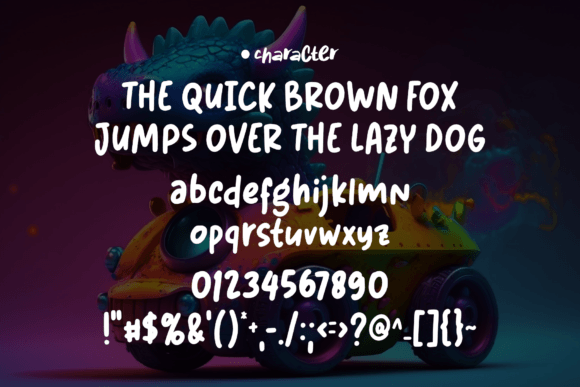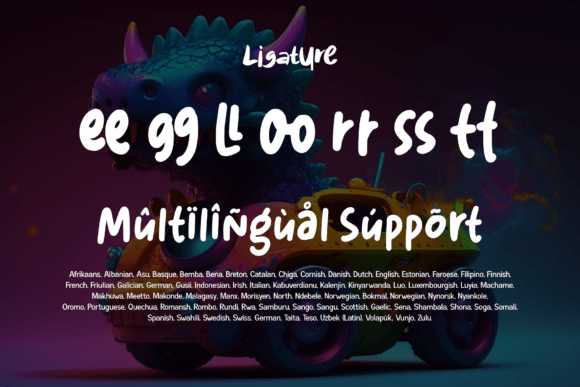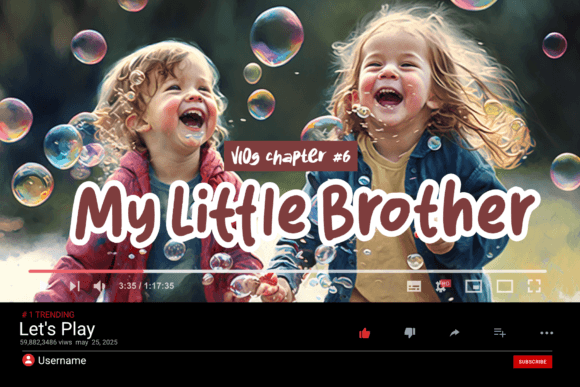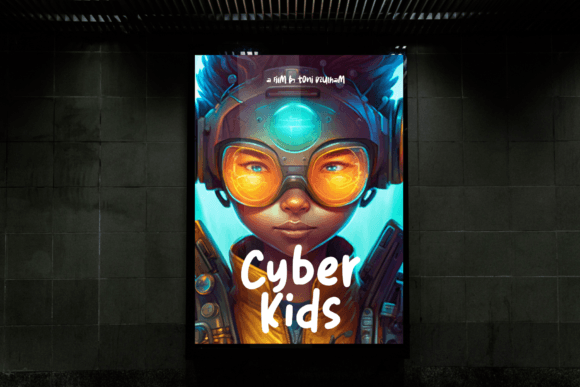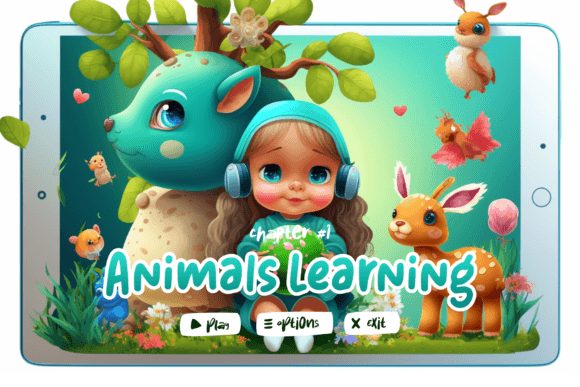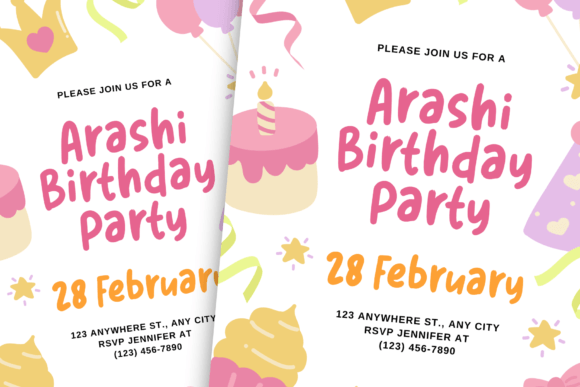
Introduction to Kidomo Font
Have you ever stumbled upon a design that instantly brings a smile to your face? Maybe it’s a colorful logo for a children’s book, or a playful social media post for a kids’ brand. Whatever it is, it’s likely that the Kidomo Font was behind its charm. This fun and colorful display font is a game-changer for designers looking to create eye-catching and playful designs that capture the essence of childhood.
As a designer, you know the value of having a reliable design resource at your fingertips. With Kidomo Font, you can bring your creative projects to life with a high-quality, free download that’s perfect for transparent backgrounds and bold statements. Its unique and charming character makes it a must-have for any designer looking to create designs that stand out from the crowd.
Key Features of Kidomo Font
- Transparent background: Kidomo Font allows for seamless integration with various creative project backgrounds.
- High-quality design: This font is a valuable design resource, perfect for designers and artists looking for a unique aesthetic.
- Unique characteristics: Kidomo Font features a playful, whimsical design that adds a touch of personality to any creative project.
Honest Review: Kidomo Font
I recently came across the Kidomo Font, and I must say it’s a delightful addition to any design project. This font is perfect for creating a playful and whimsical atmosphere in your designs, whether it’s a logo, poster, or social media graphic.
- ✨ High-quality design: The Kidomo Font is a well-designed font with clean lines and a unique style that’s sure to grab attention.
- ✨ Versatile: This font is suitable for various creative projects, from children’s book illustrations to advertisements and even wedding invitations.
However, I do have a few reservations:
- ⚠️ Limited character set: The Kidomo Font only includes a limited set of characters, which might be a drawback for designers who need to use it extensively.
- ⚠️ Not ideal for formal designs: Due to its playful nature, the Kidomo Font may not be the best choice for formal or professional designs.
Overall, the Kidomo Font is a fantastic addition to any design resource library, and its free download makes it an excellent choice for designers on a budget. While it may have some limitations, it’s perfect for creative projects that require a unique and eye-catching font.
The Kidomo Font is commonly used for graphic design, digital art, and branding projects. Its transparent background makes it ideal for use in overlays, icons, and other design elements.